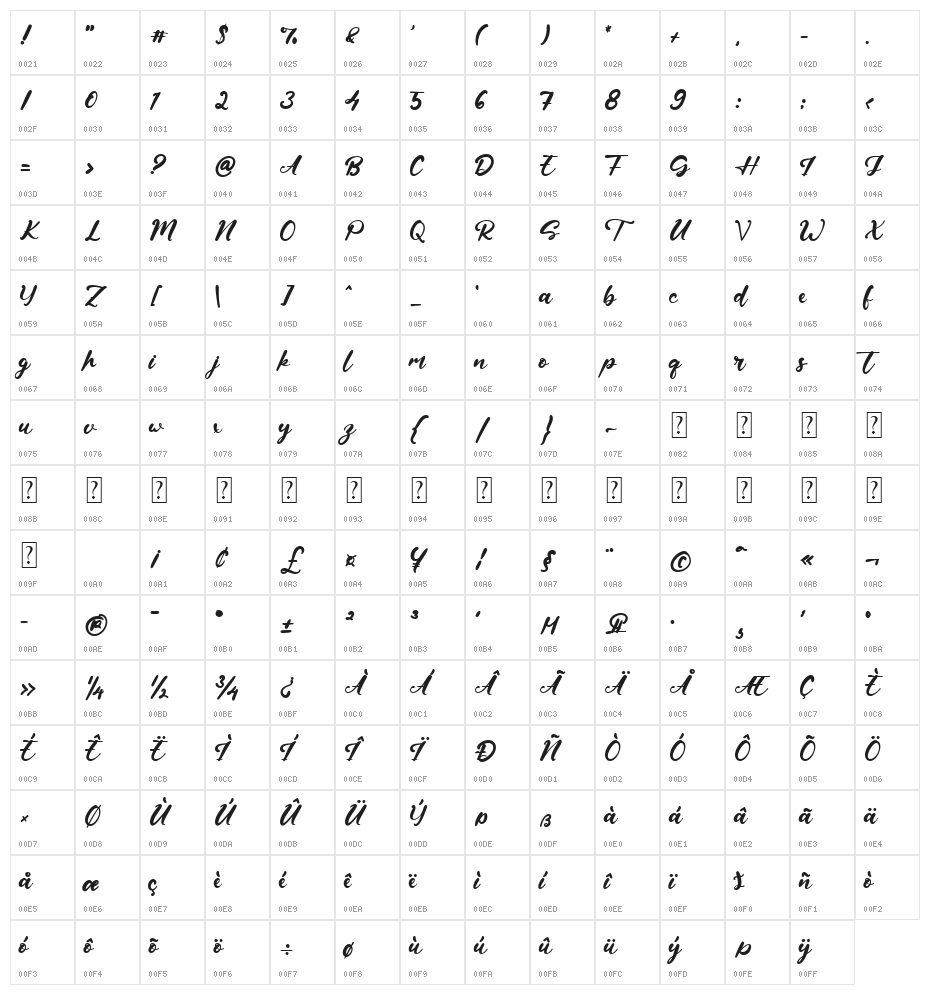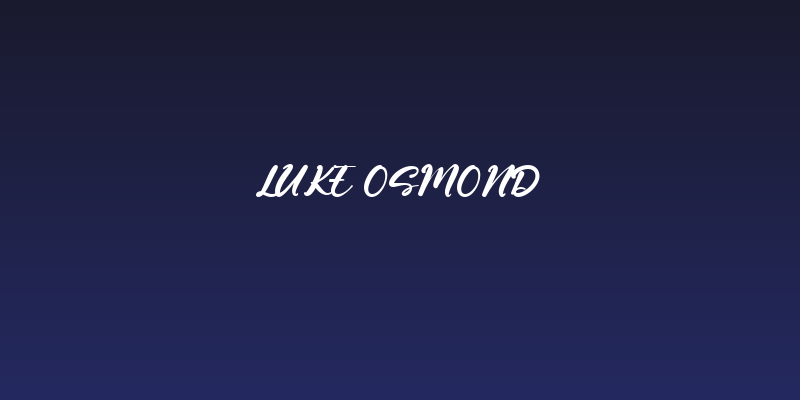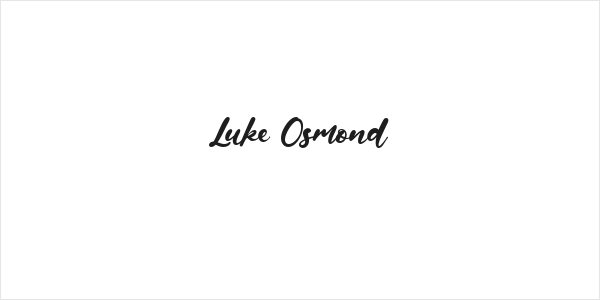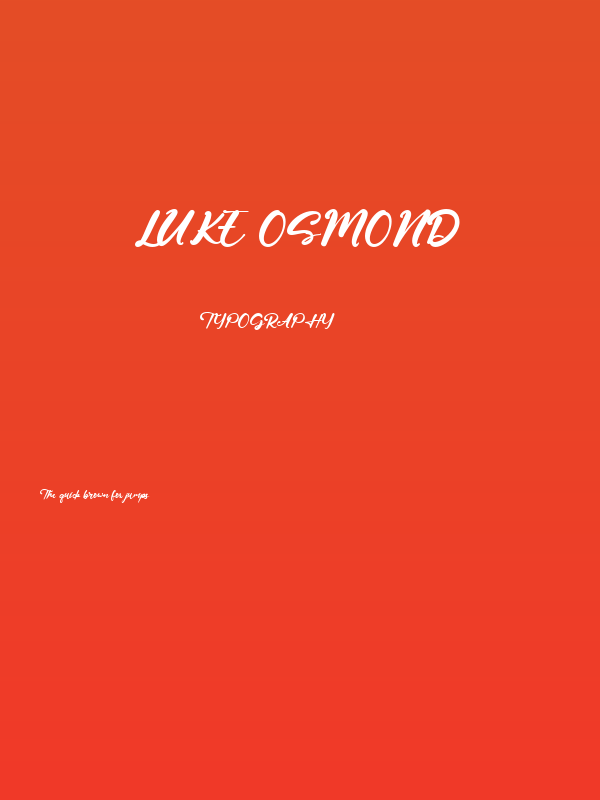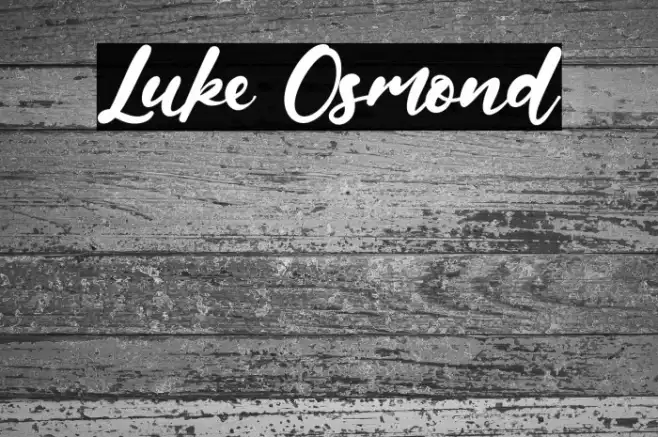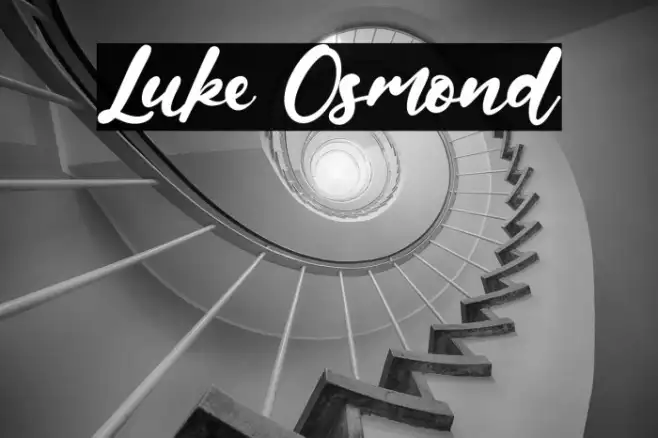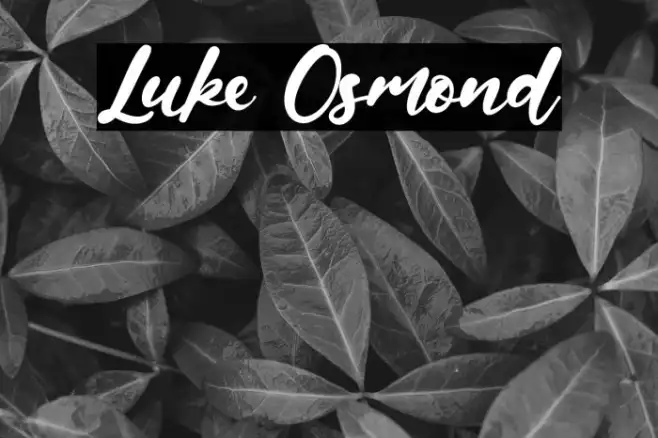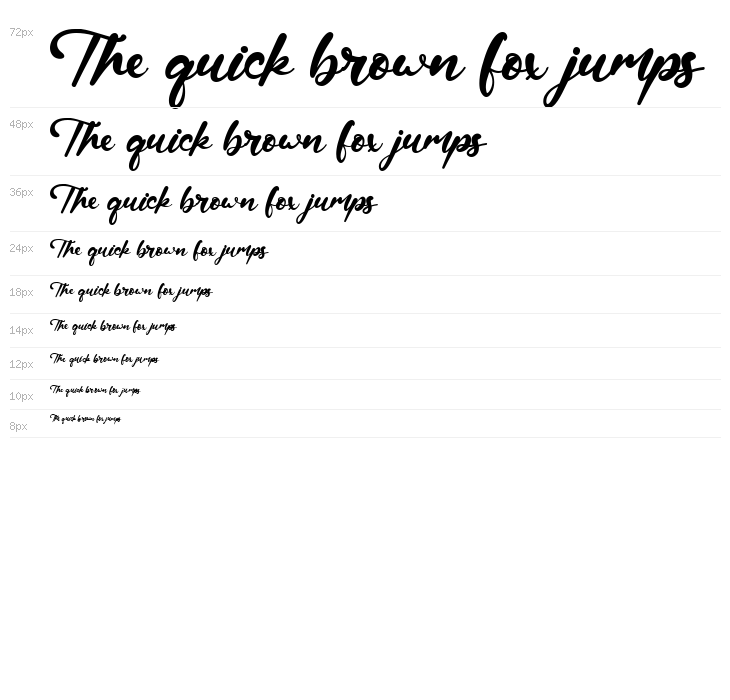
Luke Osmond Font
Luke Osmond Description
This font exudes a lively and dynamic personality, characterized by its flowing script style. The letters are interconnected with smooth, elegant curves, giving it a handwritten appearance. The uppercase letters maintain a consistent height, while the lowercase letters vary slightly, adding to the font's charm. The numerals are bold and clear, ensuring readability. Special characters are designed with the same fluidity, making them blend seamlessly with the rest of the font. This font is perfect for projects that require a personal touch, such as invitations, greeting cards, or branding materials.
| Proposed Projects | Ideal for wedding invitations, greeting cards, personal branding, and creative projects. |